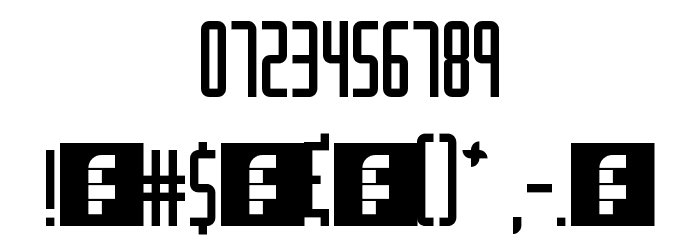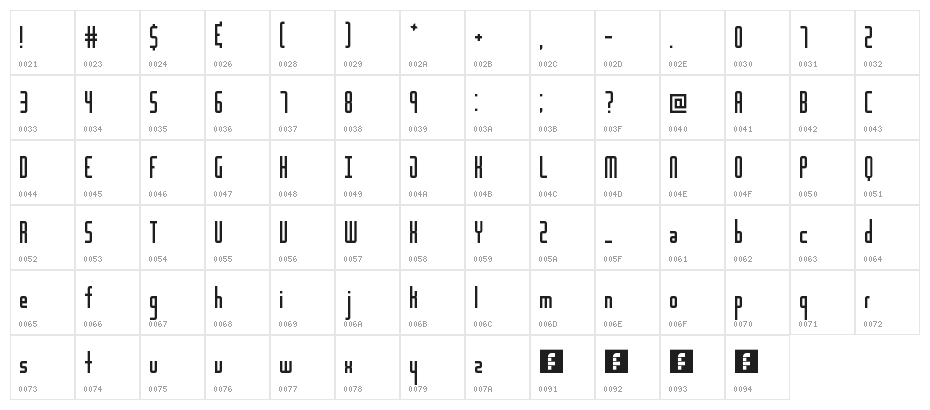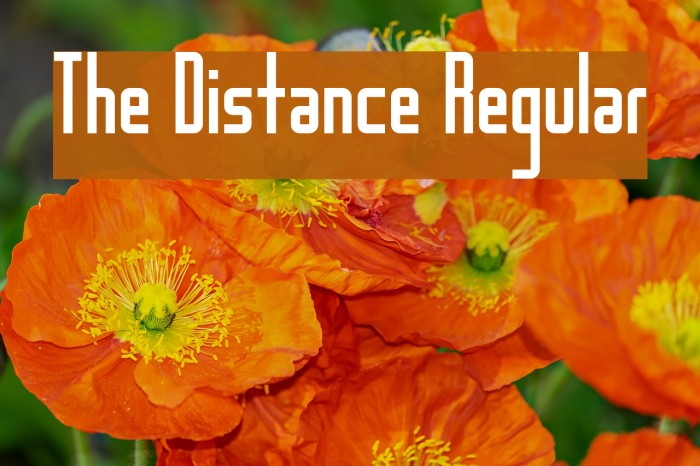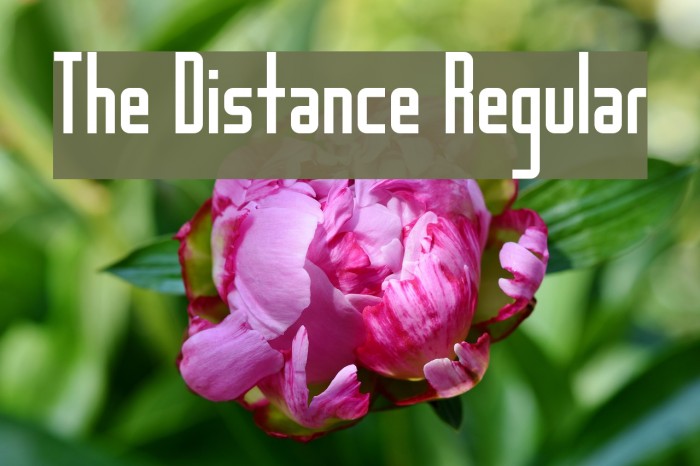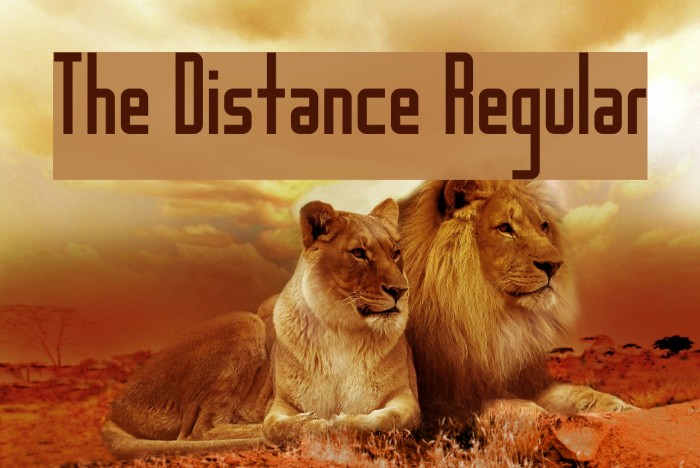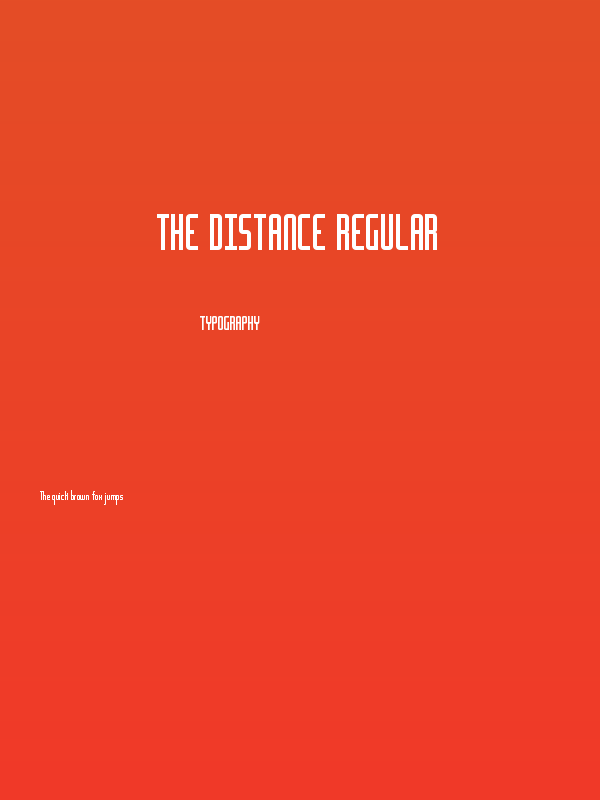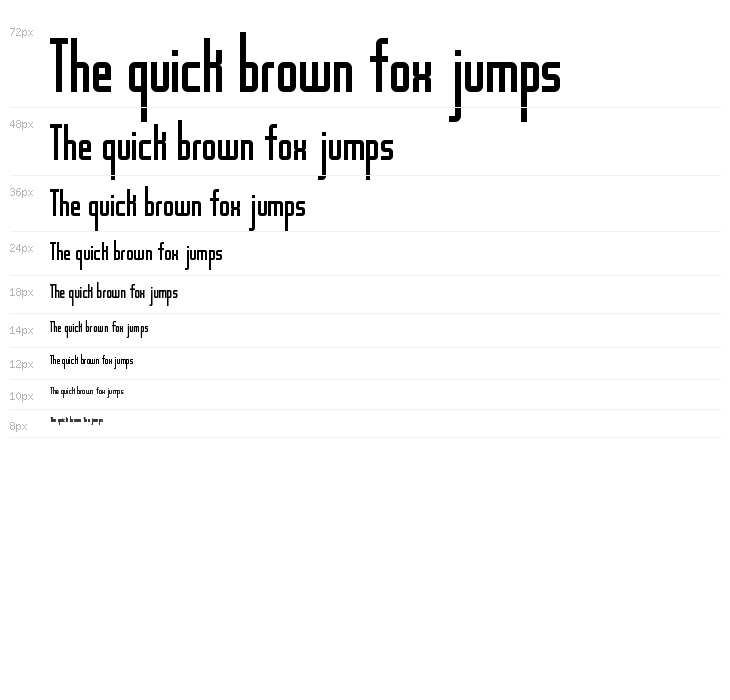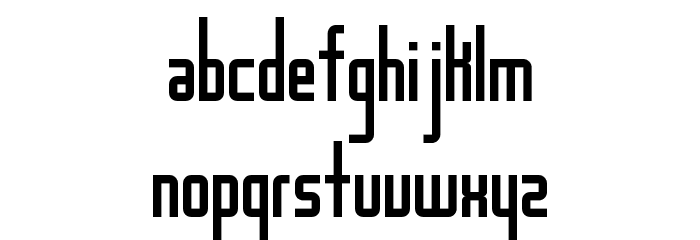
The Distance Regular Font
The Distance Regular Description
This font features a modern and geometric design with a strong emphasis on vertical and horizontal lines. The characters are uniformly structured, giving a sense of balance and stability. The uppercase letters are bold and striking, while the lowercase letters maintain a consistent style with slightly softer edges. The numerals are clear and easy to read, matching the overall aesthetic of the font. Special characters are distinct and maintain the geometric theme, making them suitable for various design applications.
| Proposed Projects | Ideal for branding, posters, and digital media where a modern and clean look is desired. |